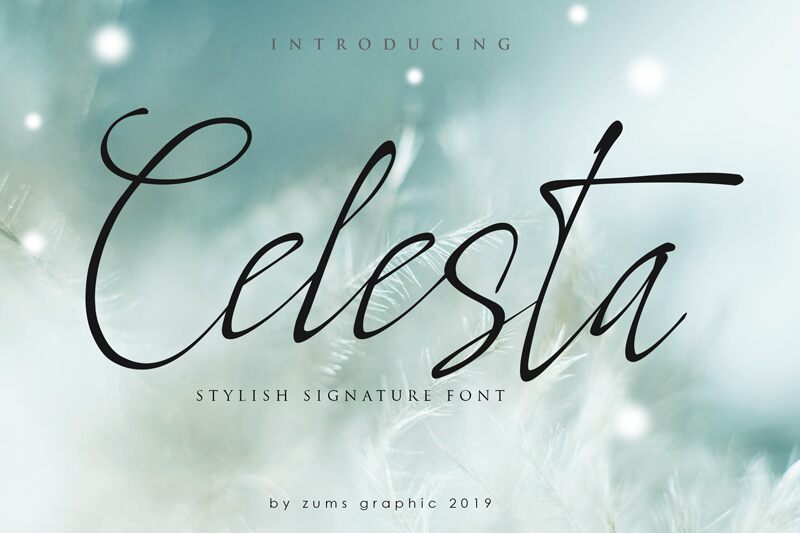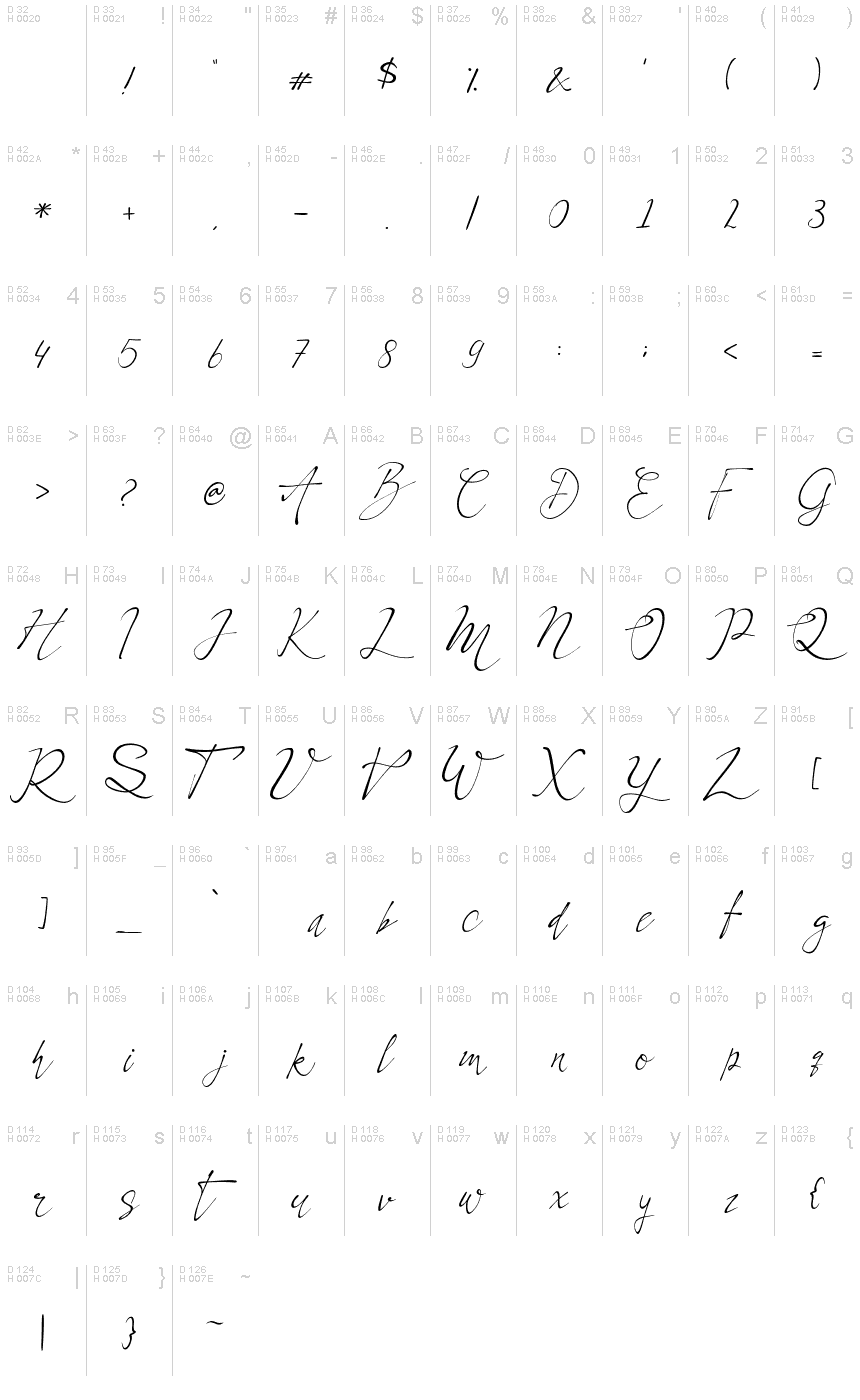
Celesta
Introducing the Celesta Script font. This font is very suitable for logos, quotes, magazines, poster, and others. With natural hand touch, this font is the best choice for you.